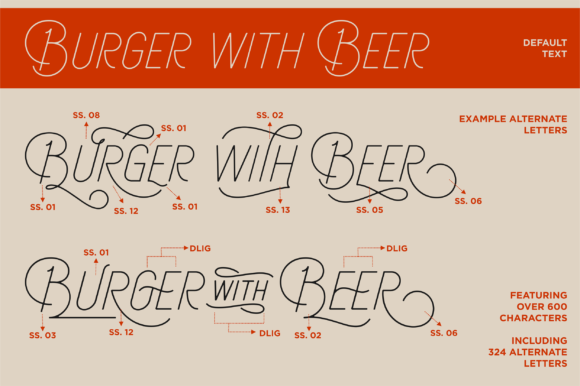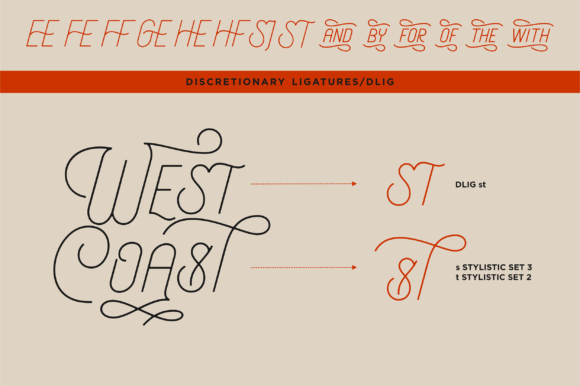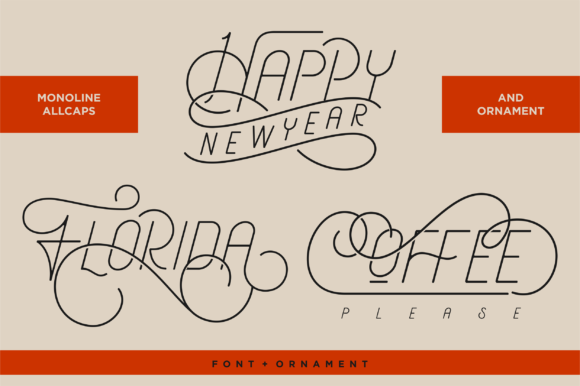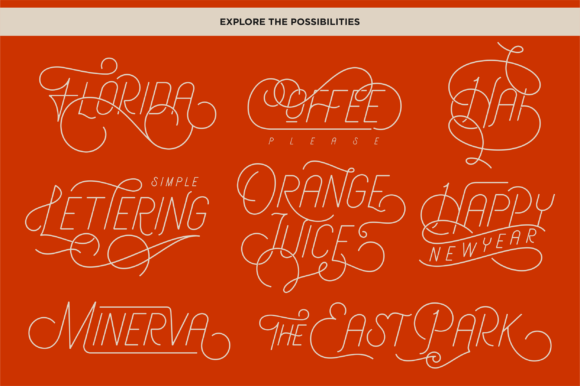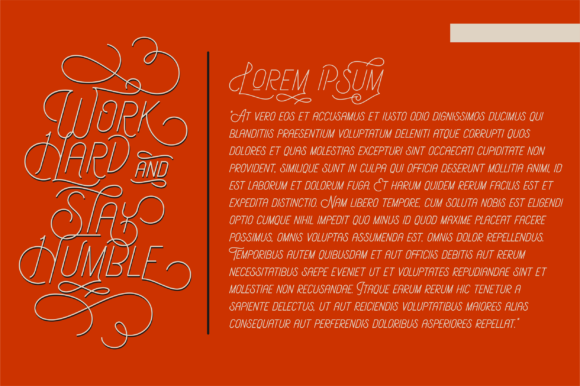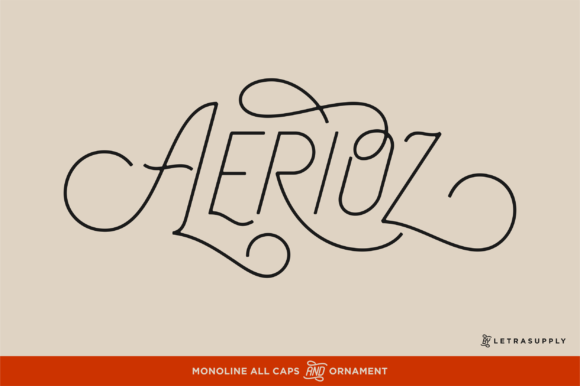
Aerioz Font: Elevate Your Designs with Elegance and Sophistication
In the world of typography, fonts play a crucial role in conveying the tone and personality of a design. For designers and crafters, finding the perfect font can be a daunting task. However, if you’re looking for a font that exudes elegance, simplicity, and sophistication, look no further than Aerioz Font. In this article, we’ll dive into the features, benefits, and uses of Aerioz Font, and explore why it’s a must-have for any design project.
What is Aerioz Font?
Aerioz Font is a stunning monoline all-caps font that boasts over 600 characters, including 324 alternate letters. Its smooth, rounded lines and simple design make it an ideal choice for a wide range of layout projects. Whether you’re working on a branding campaign, a website design, or a crafting project, Aerioz Font is sure to impress.
Key Features of Aerioz Font
- Monoline Design: Aerioz Font features a sleek and modern monoline design, perfect for creating clean and sophisticated text.
- All-Caps Font: With over 600 characters, Aerioz Font is an all-caps font that’s perfect for headlines, titles, and emphasis.
- Alternate Letters: The font includes 324 alternate letters, providing you with plenty of options for customizing your text.
- Smooth and Rounded Lines: Aerioz Font features smooth and rounded lines, giving it a soft and elegant feel.
Benefits of Using Aerioz Font
So, why should you choose Aerioz Font for your design projects? Here are just a few benefits:
- Elegance and Sophistication: Aerioz Font adds a touch of elegance and sophistication to any design, making it perfect for high-end branding and luxury projects.
- Versatility: With its simple and clean design, Aerioz Font can be used in a wide range of projects, from websites and magazines to crafting and DIY projects.
- Easy to Read: The font’s smooth lines and rounded edges make it easy to read, even at small sizes.
- Customization Options: With 324 alternate letters, you can customize your text to fit your brand’s unique style.
Uses of Aerioz Font
Aerioz Font is a versatile font that can be used in a variety of design projects, including:
- Branding and Logo Design: Use Aerioz Font to create elegant and sophisticated logos and branding materials.
- Website Design: Add a touch of elegance to your website with Aerioz Font, perfect for headings and titles.
- Magazine and Newspaper Design: Use Aerioz Font to add a touch of sophistication to your magazine or newspaper design.
- Crafting and DIY Projects: Aerioz Font is perfect for crafting and DIY projects, such as making signs, banners, and other decorative items.
In conclusion, Aerioz Font is a must-have for any designer or crafter looking to add a touch of elegance and sophistication to their design projects. With its smooth lines, simple design, and customization options, Aerioz Font is perfect for a wide range of projects. Whether you’re working on a branding campaign, a website design, or a crafting project, Aerioz Font is sure to impress. So why wait? Download Aerioz Font today and take your designs to the next level!